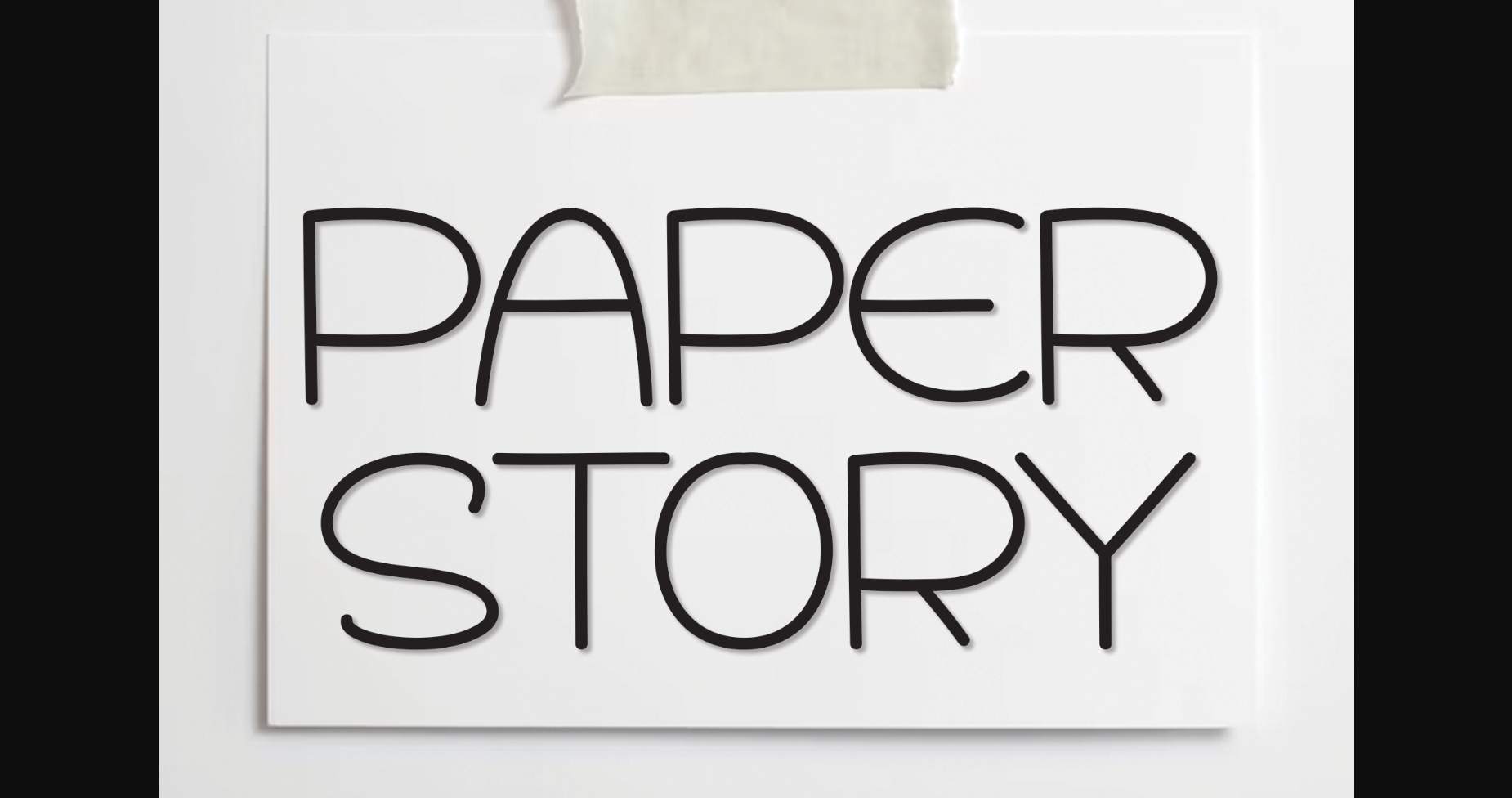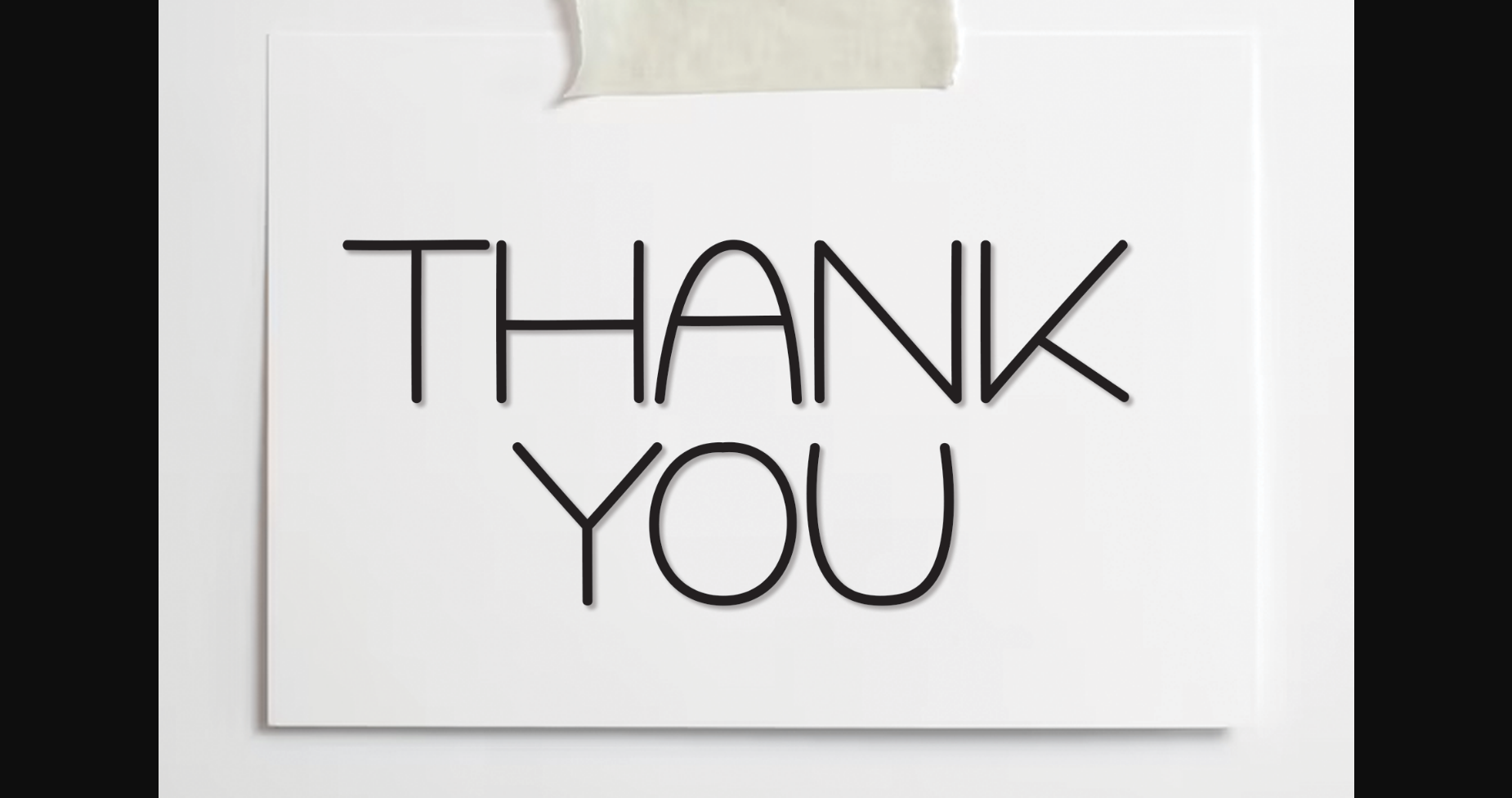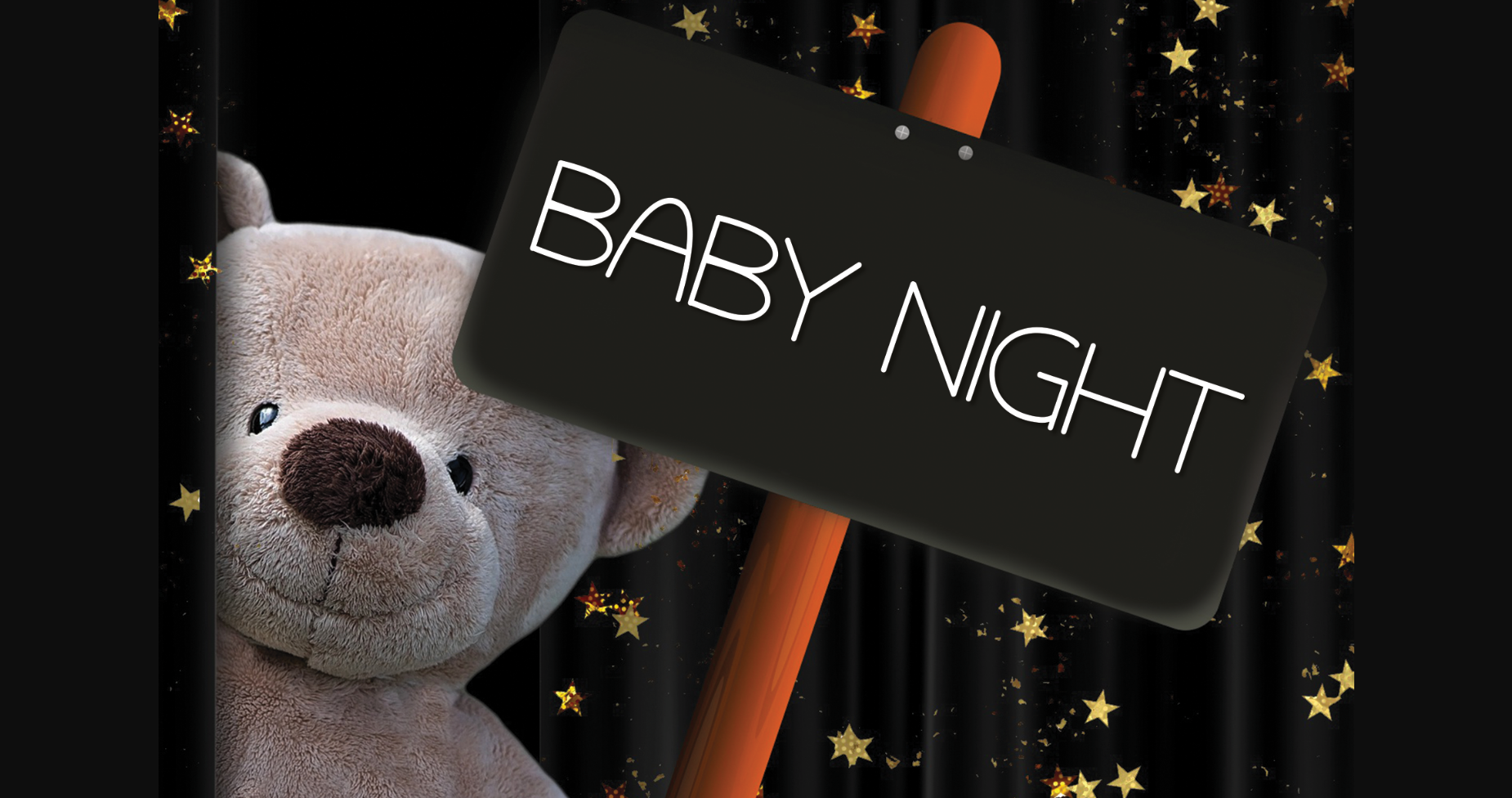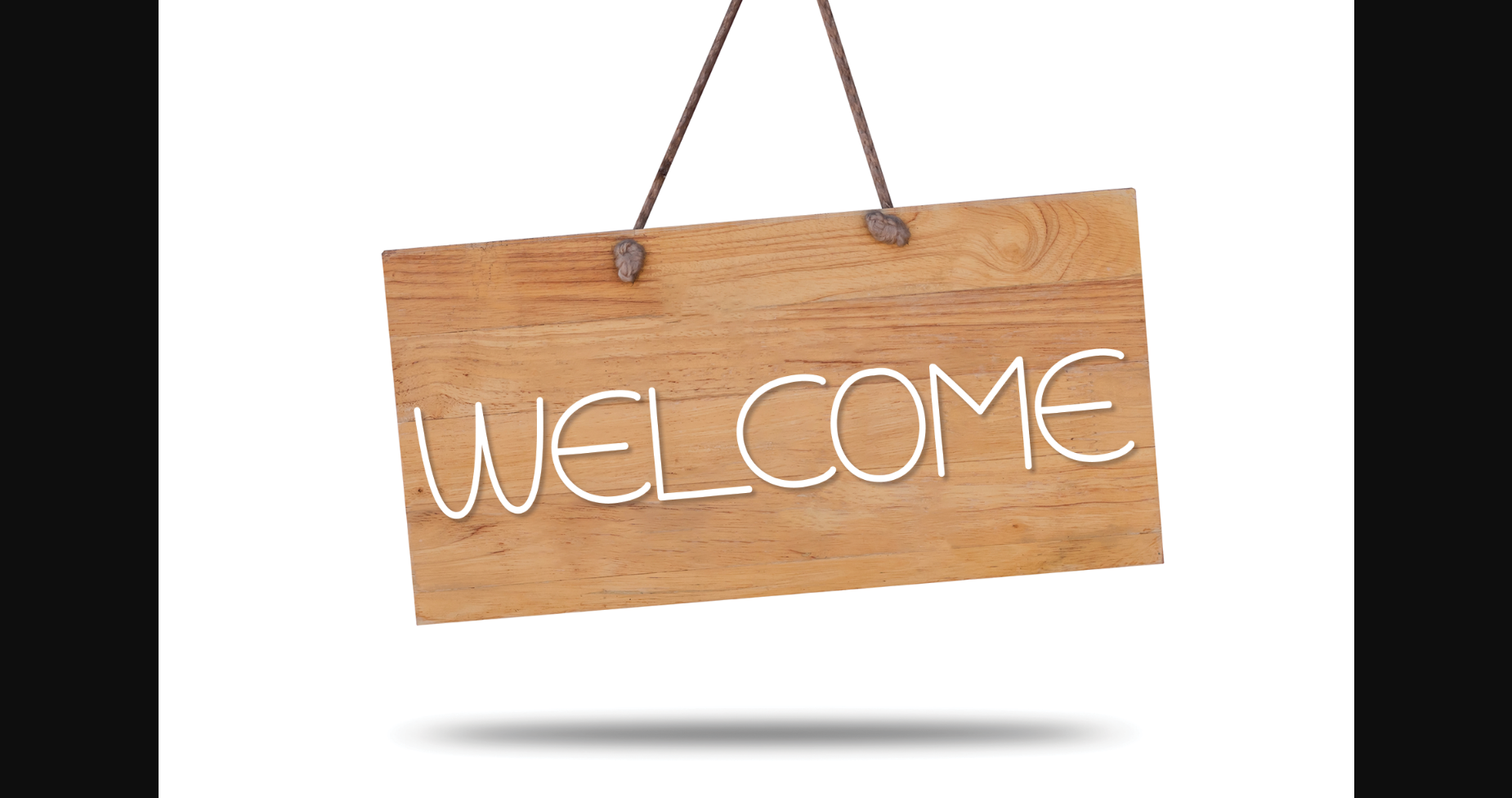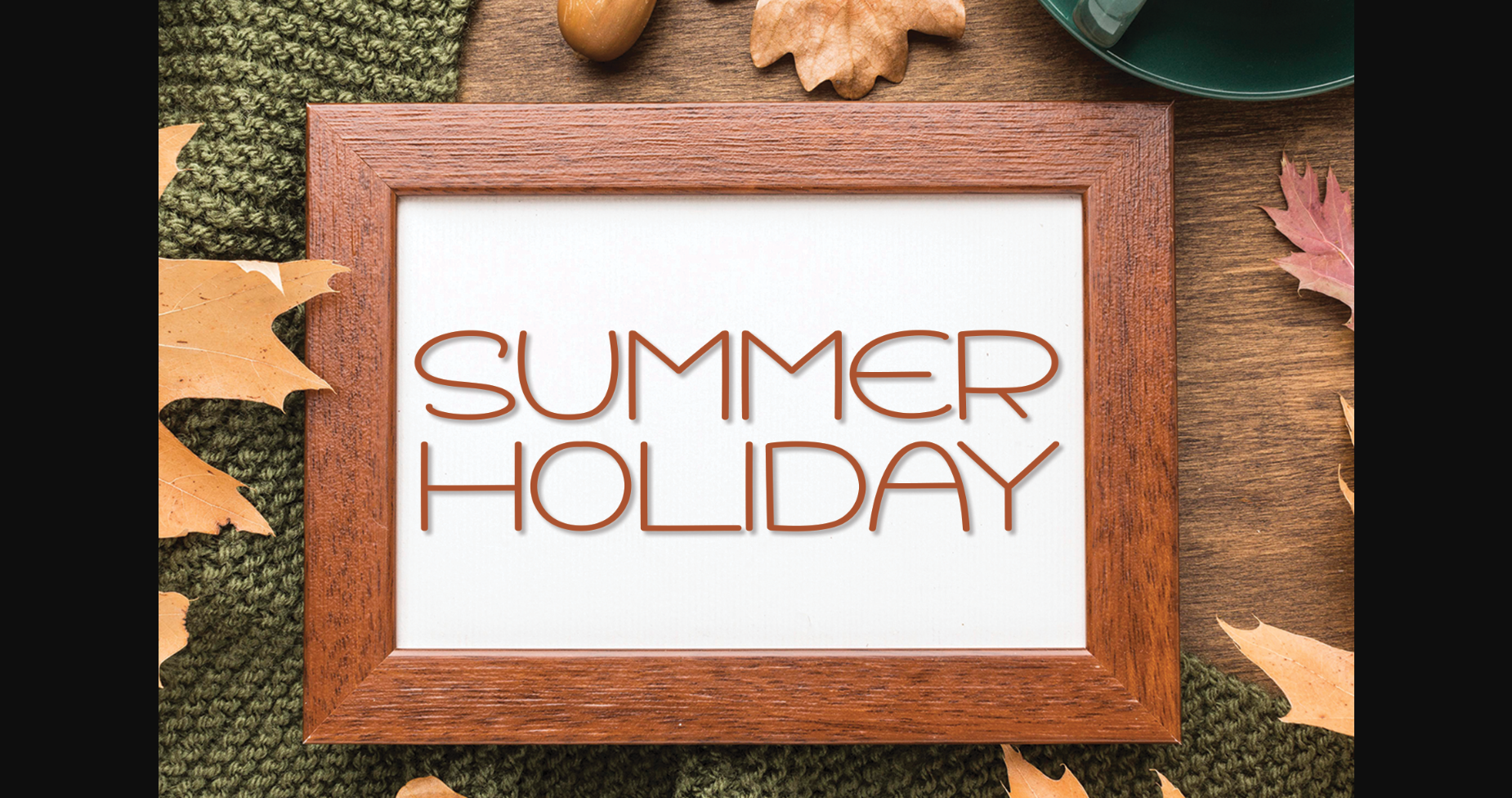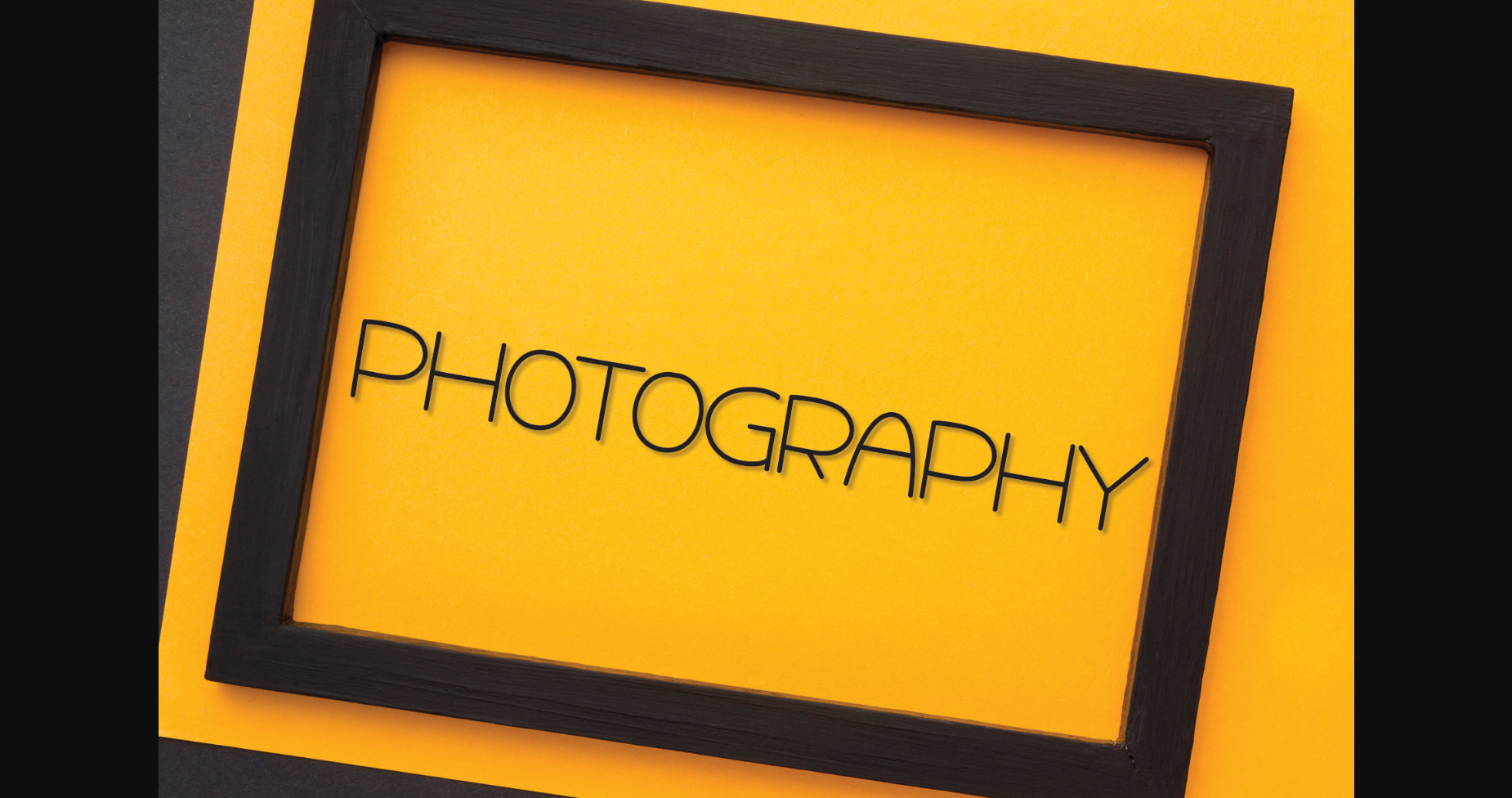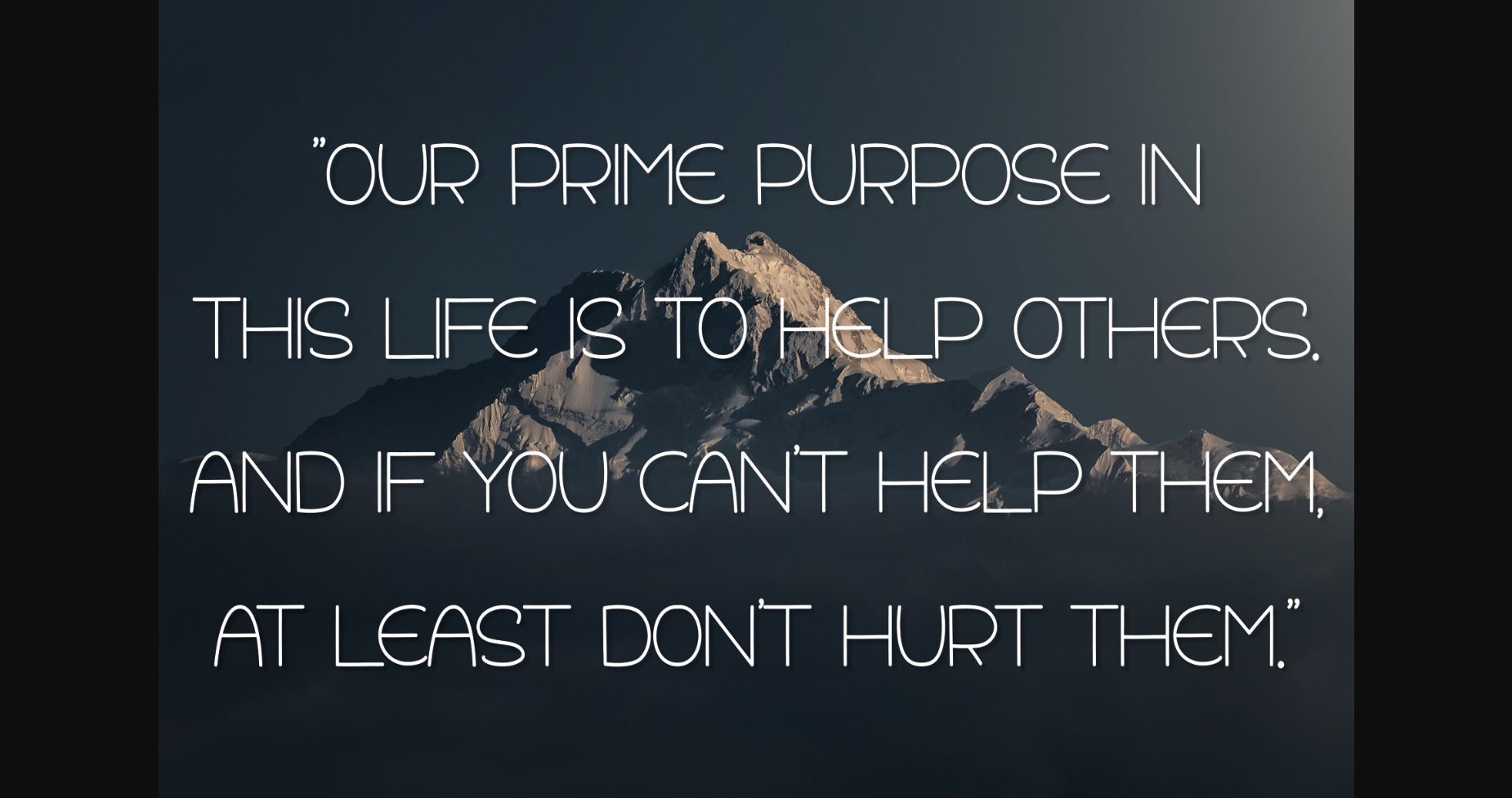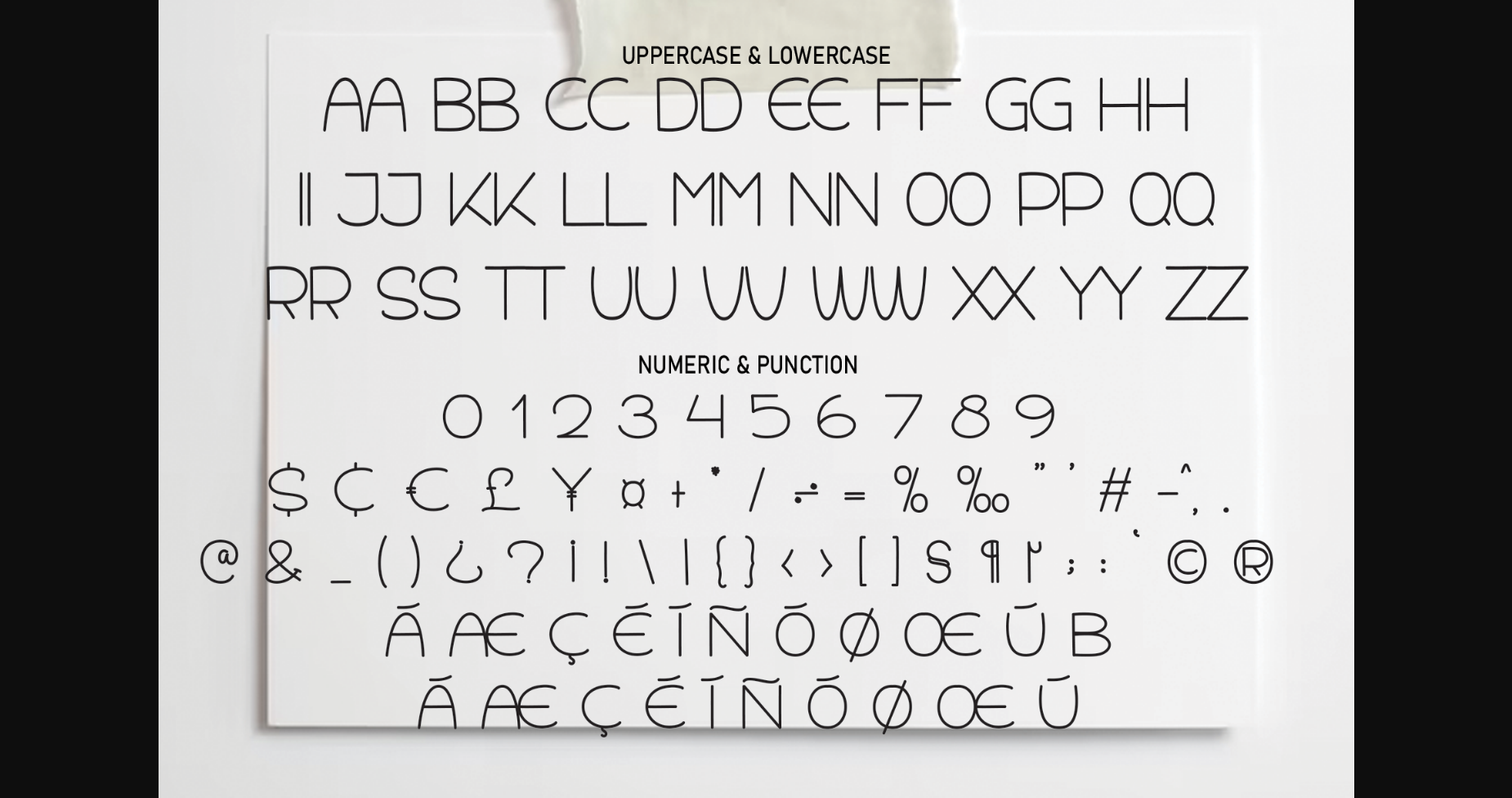
Paper Story is a fresh and natural handwritten sans serif font. Fall in love with its incredibly distinct and timeless style and use it to create spectacular designs!